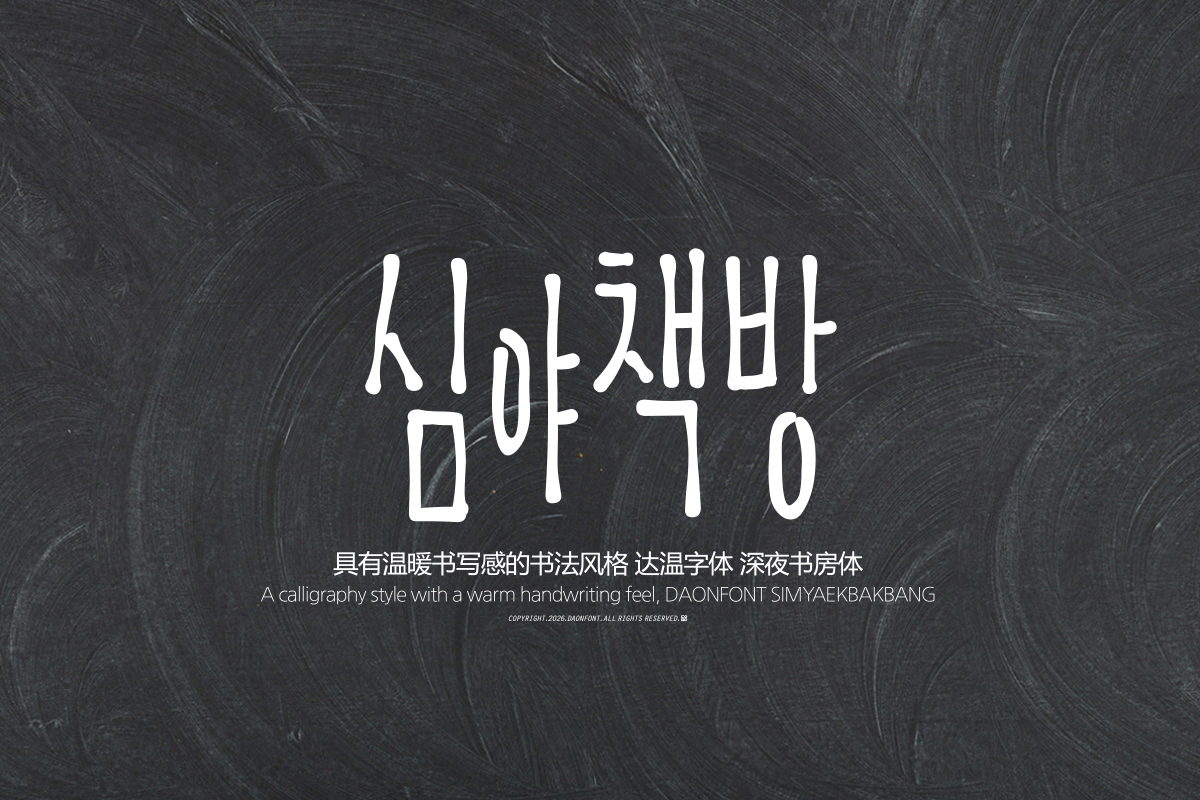
DAON SIMYACHAEGBANG
'SIMYACHAEGBANG' font is a Korean typeface that captures the unique handwriting feel of penmanship. It is designed with longer vertical spacing overall to bring out the distinctive atmosphere of penmanship.